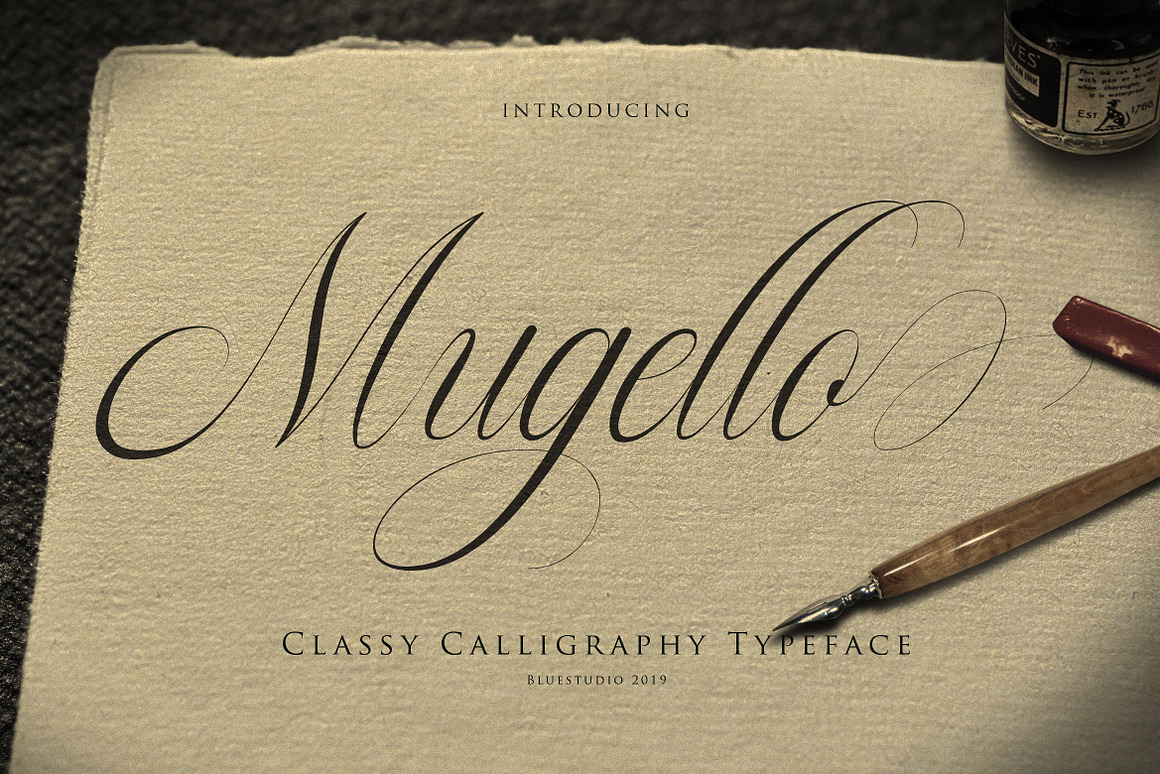
Mugello // Classy Calligraphy
Mugello Classy Calligraphy is perfect for luxury wedding invitations, high-end fashion brand signatures, sophisticated greeting cards, premium wine label designs, elegant boutique identities, and upscale event stationery. This refined typeface excels in luxury hospitality branding, exclusive product packaging, formal award ceremonies, and any application where Italian sophistication and calligraphic elegance create memorable impressions of timeless luxury and cultural refinement.
What makes Mugello Classy Calligraphy so exciting is its exceptional ability to embody the artistic heritage and sophisticated elegance of Italian Renaissance calligraphy through masterfully crafted letterforms that honor centuries of artistic tradition. The font features flowing Renaissance curves, aristocratic proportions, and classical character shapes that reflect the cultural refinement and artistic excellence of Italian heritage. Its distinguished presence makes it perfect for brands celebrating artistic sophistication and cultural elegance.
Mugello Classy Calligraphy comes in an elegant family including Light, Regular, Medium, Bold, and Renaissance weights. Each style features complete uppercase and lowercase character sets, artistic symbols, classical numerals, and sophisticated punctuation marks. The font family also includes decorative flourishes, calligraphic ligatures, and Renaissance variations that allow designers to create truly luxurious communications with Italian appeal and professional artistic quality.
This magnificent typeface transforms communications into celebrations of Italian artistic heritage and calligraphic excellence. Mugello Classy Calligraphy Free Download provides luxury brands and cultural organizations with essential typography that honors Italian traditions while serving contemporary sophisticated communication needs. Whether you're developing brands for luxury services, creating materials for cultural events, or designing exclusive invitations for prestigious occasions, this font delivers authentic Italian resonance with aristocratic elegance.
The font's Renaissance character makes it particularly effective for luxury retailers, Italian cultural institutions, high-end event planners, and sophisticated lifestyle brands. Its flowing readability ensures that Mugello Classy Calligraphy maintains clarity while projecting maximum sophistication and preserving its distinctive Italian personality. The font's ability to evoke cultural refinement and artistic heritage makes it an invaluable masterpiece for any project seeking to celebrate Italian elegance and connect with audiences through the timeless appeal of Renaissance artistry, calligraphic beauty, and the enduring sophistication of Italian cultural excellence.